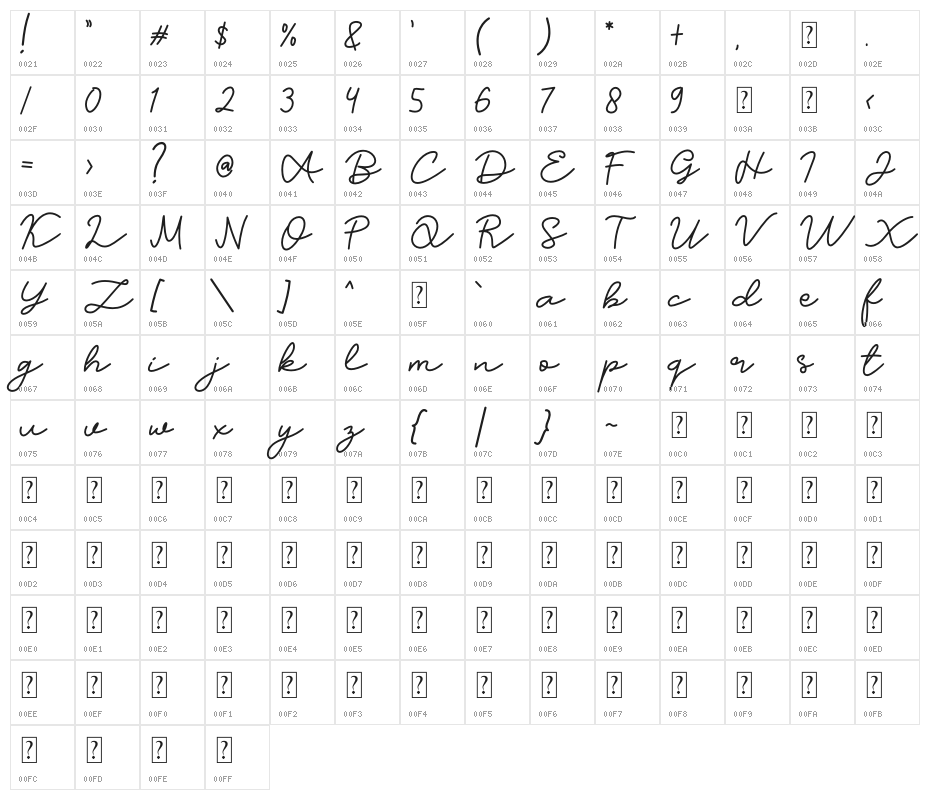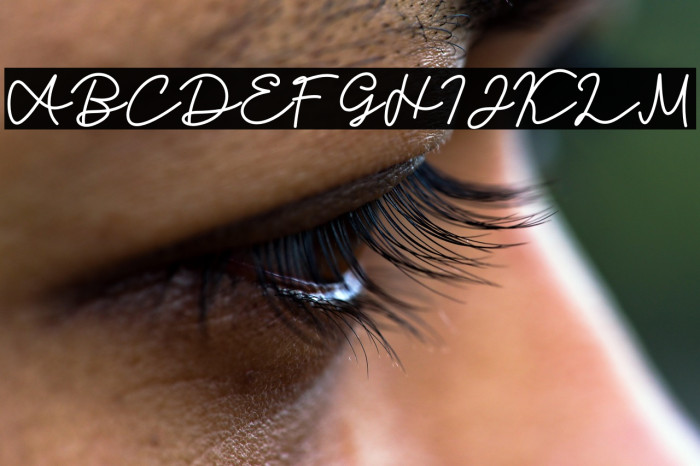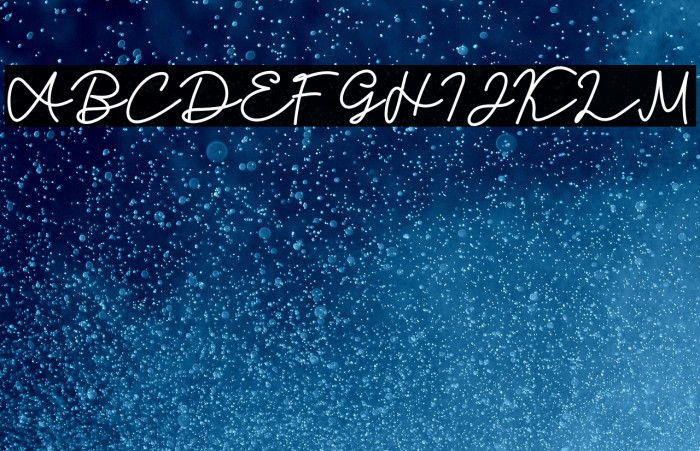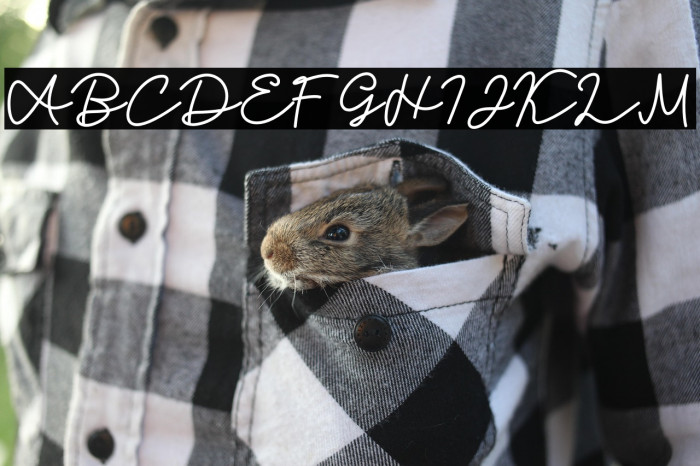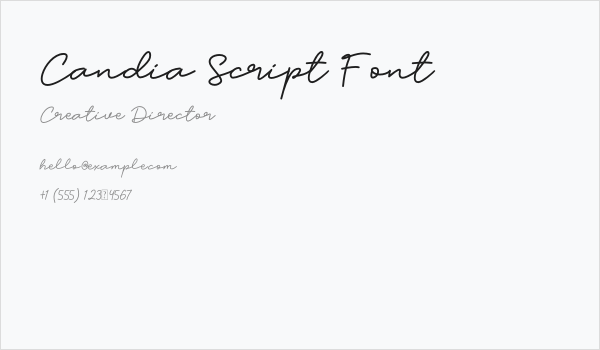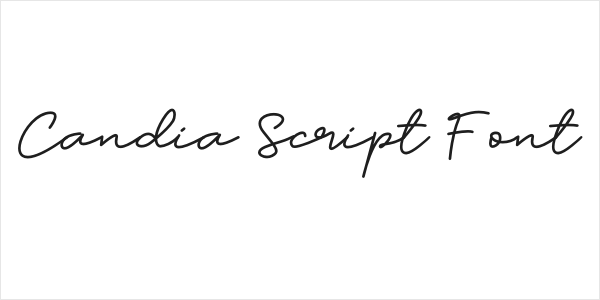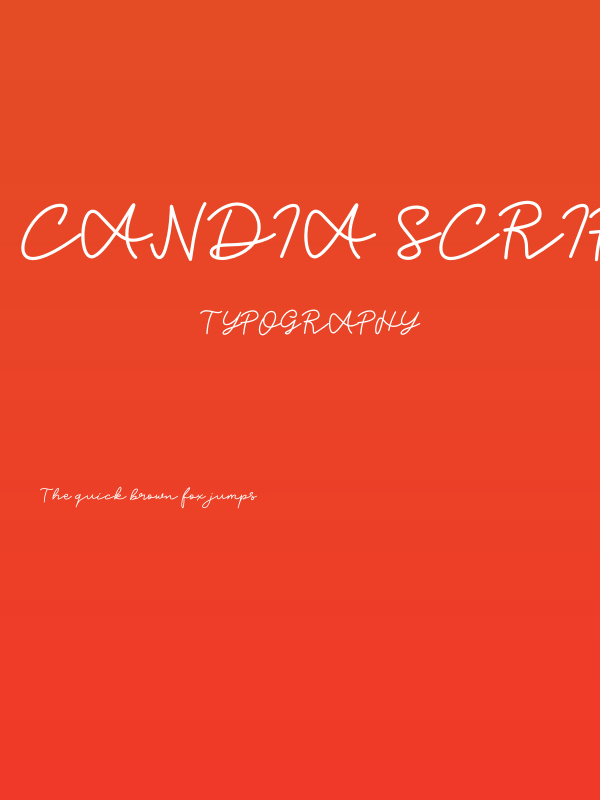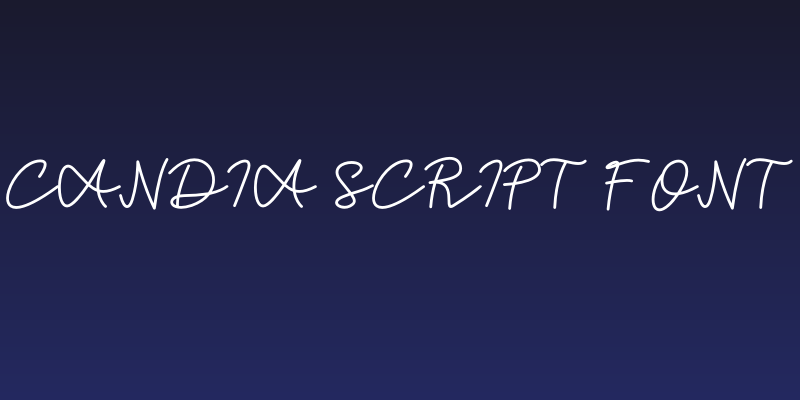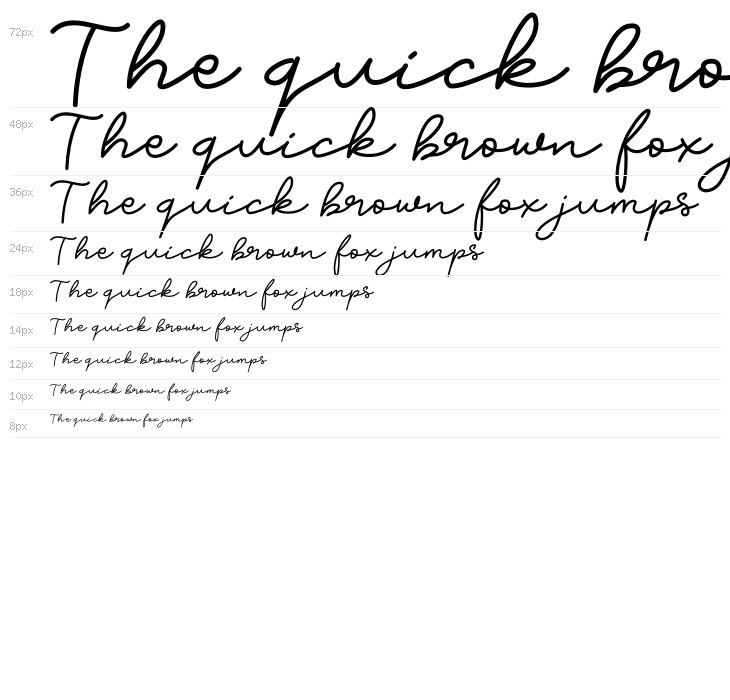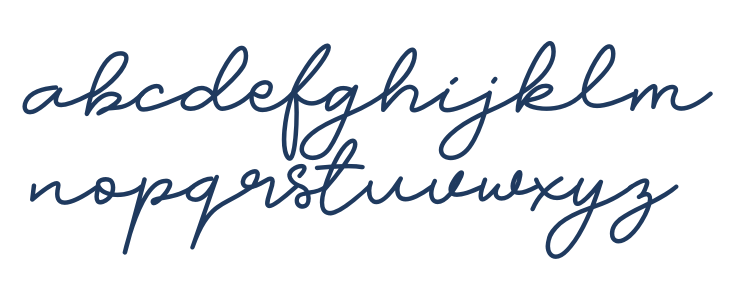
Candia Script Font Font
Candia Script Font Description
This elegant script font features a fluid and connected style, reminiscent of traditional calligraphy. The uppercase letters are gracefully looped and slightly slanted, while the lowercase letters maintain a consistent flow, enhancing readability. The numerals are clear and well-defined, complementing the overall aesthetic. Special characters are thoughtfully designed to match the script's elegance, making it suitable for a variety of applications. The font's smooth curves and balanced proportions give it a sophisticated and timeless appeal, perfect for projects that require a touch of class and refinement.
| Overall Style | Classic |
| Use Case | Logos, Invitations, Branding |
| Proposed Projects | Ideal for wedding invitations, elegant branding, greeting cards, and upscale packaging. |